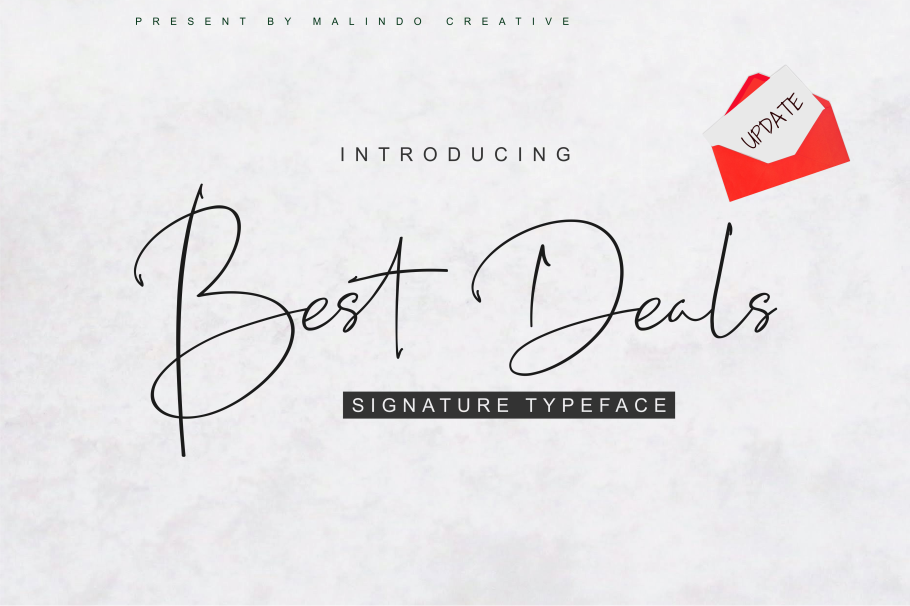
Best Deals | Signature Typeface
Best Deals | Signature Typeface, is a signature script with natural flow & style. This font has a natural looking ligature for the OpenType feature,
making the font appear as close as possible to natural handwriting,
Best Deals | Signature Typeface is perfect for all projects such as,
logos & branding, invitations, stationery, wedding designs, social media posts, advertisements, product packaging, product designs, labels, photography, watermarks, special events or whatever.
Best Deals | Signature Typeface Comes With 353 Glyphs and OpenType Features are also added to this font.
Best Deals | Signature Typeface has given PUA encoded (fonts with special code).
The Features includes:Stylistic
Alternates,
Swashes,
Ligatures,
Stylistic Set.
You can pick the alternate for all style